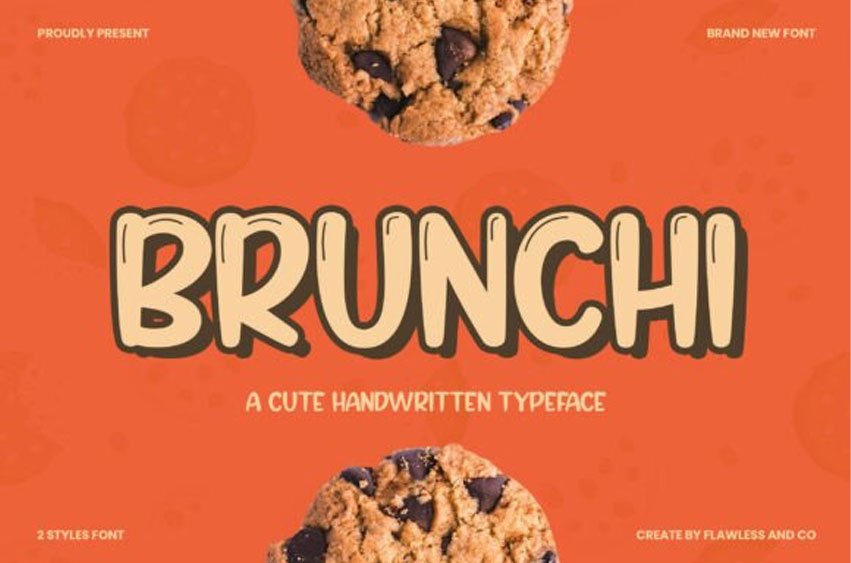
Brunchi Font is a fun and bouncy handwritten typeface that’s full of character and charm. Inspired by the joy of cookies and childhood treats, Brunchi brings a warm, friendly, and slightly quirky feel to any design.
Its rounded edges and playful strokes make it perfect for adding a hand-crafted, inviting vibe to your projects. Brunchi comes in 2 delicious styles — clean and shadowed — that you can mix and match for that extra layer of yum.